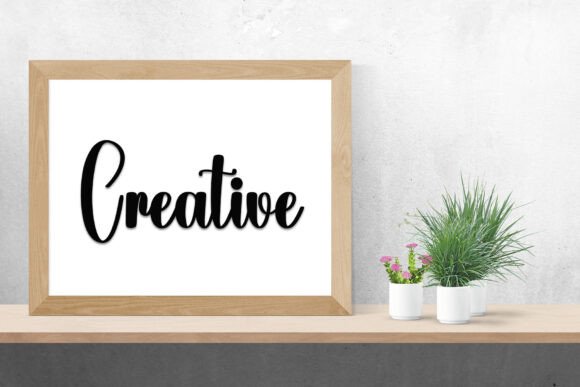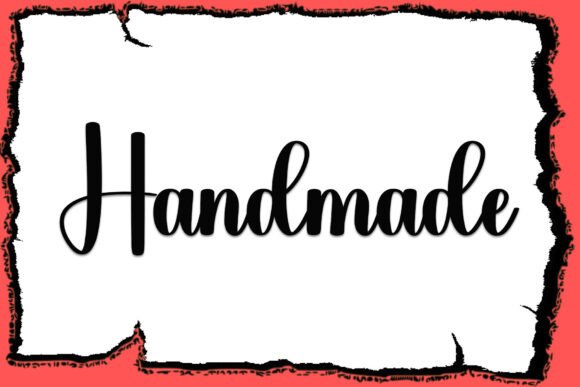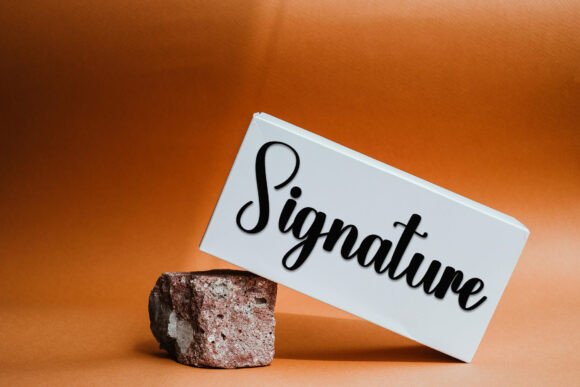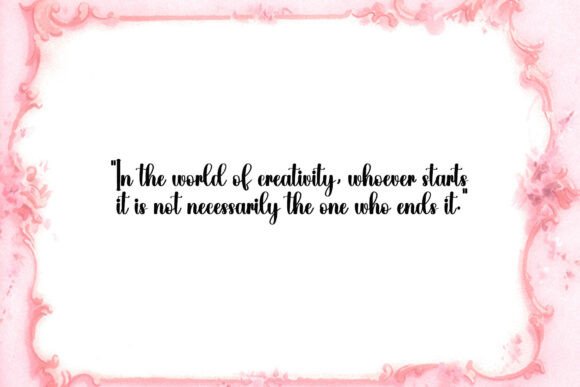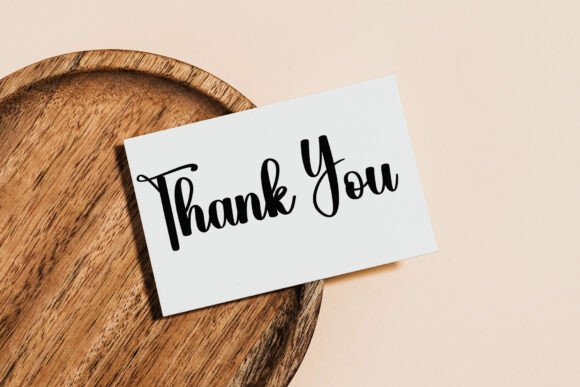
Introducing Digital: The Trendy Handwritten Font for Modern Designs
In the world of typography, fonts play a crucial role in conveying the tone and personality of a design. For designers and crafters, finding the perfect font can make all the difference in creating visually stunning and effective designs. If you’re on the hunt for a font that exudes elegance, class, and a touch of modernity, look no further than Digital – a trendy handwritten font that is sure to elevate your design projects.
Inspired by Timeless Classic Calligraphy
Digital is a masterpiece of modern typography, drawing inspiration from the timeless classics of calligraphy. With its roots in traditional lettering, Digital boasts a unique and sophisticated style that is both nostalgic and contemporary. The font’s creator has meticulously crafted each letterform to reflect the impeccable form and fluidity of classic calligraphy, while infusing it with a modern twist that makes it perfect for today’s designs.
A Contemporary Atmosphere with a Touch of Elegance
Digital’s design is characterized by its clean lines, harmonious proportions, and a balanced rhythm that gives it a distinctly contemporary atmosphere. This font is not just a collection of letters; it’s an experience that brings a sense of sophistication and luxury to any design project. Whether you’re working on a branding project, a website, or a craft, Digital adds an unmistakable touch of elegance and class that sets it apart from more generic fonts.
Versatility for Various Design Projects
One of the standout features of Digital is its versatility. This font is not limited to a specific style or medium; it can seamlessly integrate into a wide range of design projects. From luxury brand logos and high-end product packaging to elegant wedding invitations and professional websites, Digital proves to be an incredibly versatile tool in the hands of designers and crafters.
Why Choose Digital for Your Designs?
- Elegance and Sophistication: Digital brings an unmatched level of elegance and sophistication to your designs, making them stand out in a crowded digital landscape.
- Contemporary yet Timeless: While Digital has a distinctly modern feel, its roots in classic calligraphy ensure that it remains timeless, avoiding the fleeting nature of trend-specific fonts.
- Legibility and Readability: Despite its elegant and handwritten nature, Digital maintains high legibility and readability, making it suitable for both headings and body text.
- Easy to Use: Digital is designed to be user-friendly, allowing designers of all skill levels to easily incorporate it into their projects.
How to Make the Most of Digital
To truly leverage the potential of Digital, consider the following tips:
- Pair it with Neutrals: Combine Digital with neutral fonts for body text to create a balanced and harmonious design.
- Experiment with Colors: While Digital shines in its natural form, don’t be afraid to experiment with different colors and gradients to match your brand’s aesthetic.
- Play with Sizes: Utilize Digital in various sizes to create visual hierarchy and emphasize key messages in your design.
Digital is more than just a font – it’s a design statement. With its trendy handwritten style, contemporary atmosphere, and impeccable form inspired by timeless classic calligraphy, Digital is poised to become your go-to font for projects that demand elegance, class, and a modern edge. Whether you’re a professional designer or a skilled crafter, Digital offers the perfect blend of aesthetics and functionality to bring your creative visions to life.
Embrace the elegance of Digital in your next design project and experience the difference that a truly exceptional font can make.